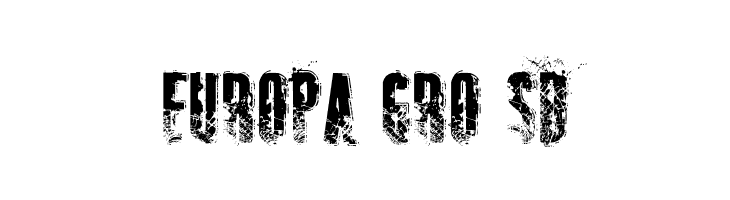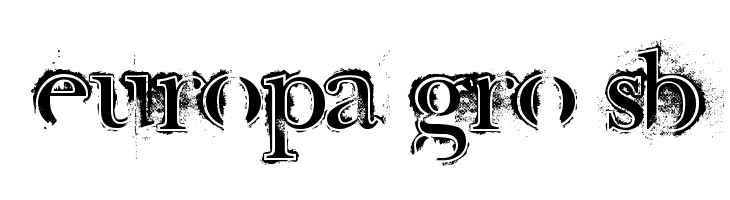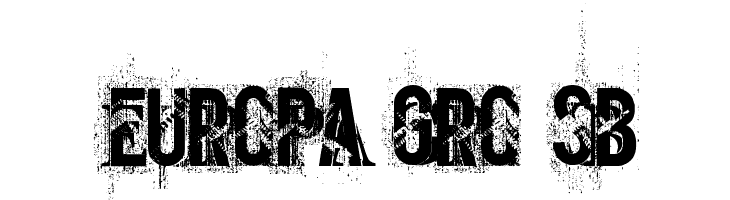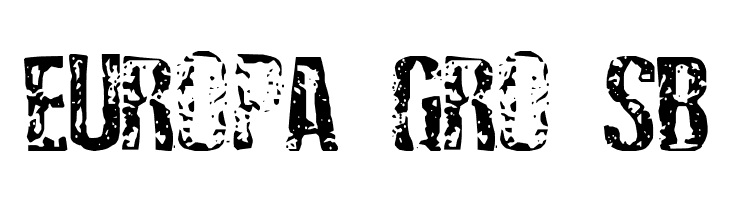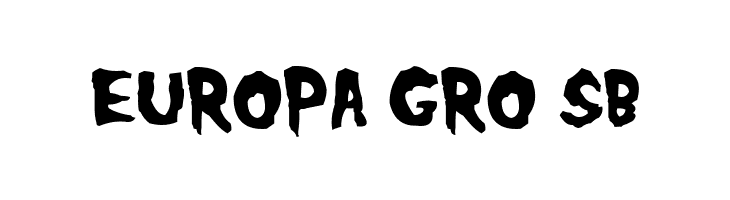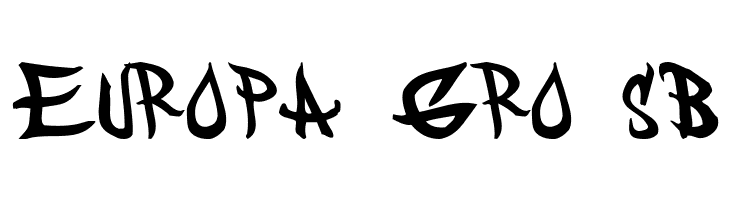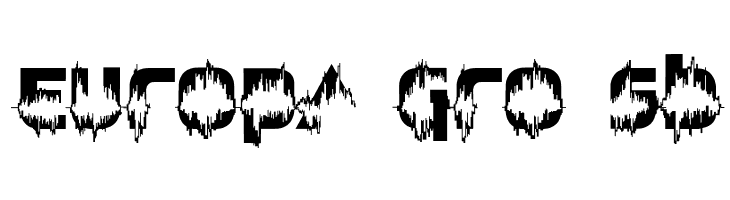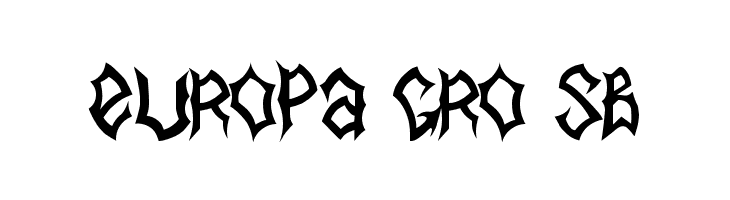
A bold, distressed font with a grunge aesthetic and rough edges.
( Fonts by German Olaya - www.typo5.com )
A bold, distressed font with a dynamic, grunge style.
( Fonts by Sacred Nipple - Brode Vosloo )
A distressed, chaotic font with jagged, uneven strokes for an edgy look.
( Fonts by Barry Bujol - theoriginal19.blogspot.com )
A bold, decorative font with a grunge and distressed style.
A bold, distressed font with a gritty, punk-inspired aesthetic.
( Fonts by Phillip Cavette )
A bold, textured font with a vintage, distressed style.
( Fonts by Gyom Seguin - last-soundtrack.daportfolio.com )
A bold, distressed font with a grunge-like, chaotic style.
( Fonts by www.junkohanhero.com )
A distressed, grungy font with bold, irregular strokes and a hand-drawn feel.
( Fonts by Gyom Seguin - last-soundtrack.daportfolio.com )
A bold, distressed font with a gritty, textured appearance.
( Fonts by Christopher Hansen )
A bold, distressed font with a grunge texture and rugged appearance.
( Fonts by Bumbayo Font Fabrik - bumbayo.blogspot.com )
A bold, distressed font with a grunge aesthetic.
( Fonts by Gyom Seguin - last-soundtrack.daportfolio.com )
A distressed, grungy font with a chaotic and edgy aesthetic.
( Fonts by Mr Fisk - Mike Larsson - fontorama.net )
A bold, chaotic display font with a punk rock aesthetic and distressed look.
( Fonts by www.junkohanhero.com )
A bold, grunge-style font with splattered, irregular edges.
( Fonts by Davy Meykens - davymeykens.deviantart.com )
A bold, grunge-style font with splatters and drips for an edgy look.
( Fonts by German Olaya - www.typo5.com )
A distressed, grunge-style font with a rugged, hand-crafted appearance.
( Fonts by Gyom Seguin - last-soundtrack.daportfolio.com )
A bold, distressed font with a grunge aesthetic and geometric shapes.
( Fonts by www.fenotype.com )
A bold, distressed font with a grunge aesthetic and uniform character width.
( Fonts by Gyom Seguin - last-soundtrack.daportfolio.com )
( Fonts by Christopher Hansen )
A distressed, grungy font with chaotic, textured characters.